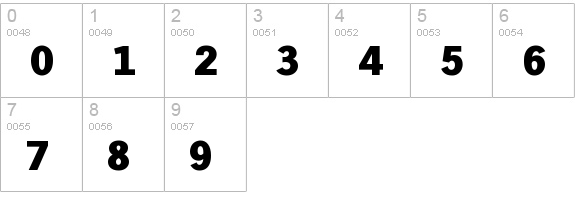
Hiero Display SSi font is a modern and sleek typeface that exudes sophistication and elegance. With its clean lines and sharp edges, this font is perfect for creating eye-catching headlines and titles that demand attention. The unique design of Hiero Display SSi font makes it stand out from the crowd, adding a touch of class to any project. The best part? Hiero Display SSi font is completely free to download at FontsMarket.com. Whether you're working on a website, poster, or any other design project, this font is sure to elevate your work to the next level. Don't miss out on the opportunity to add this stunning font to your collection today!